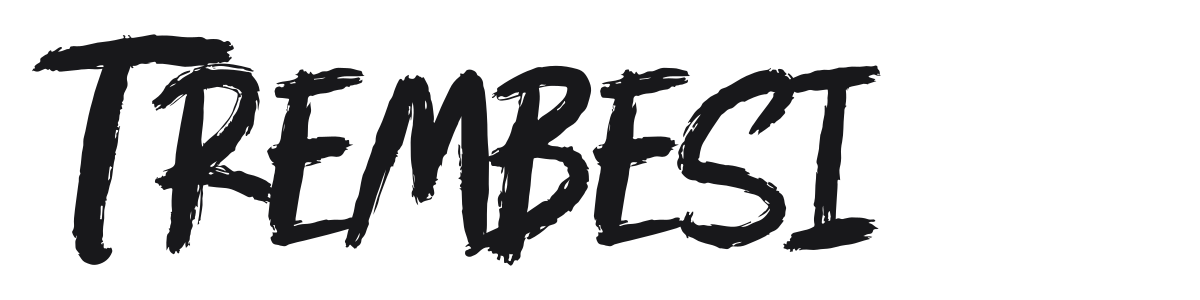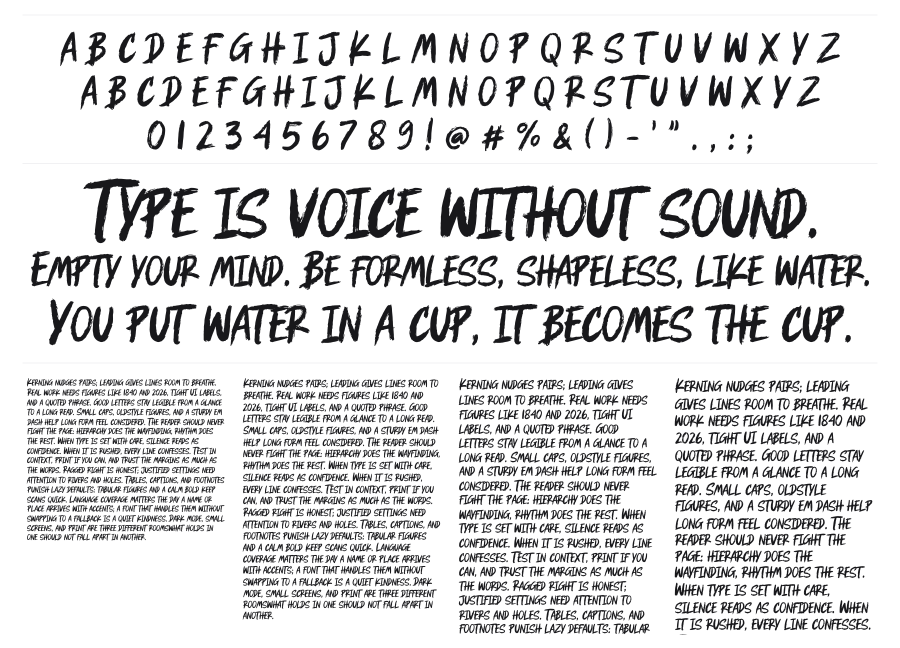
Trembesi
Trembesi is a bold, rough-textured brush script from Weape Studio with the raw energy of hand-painted signage. Thick strokes show visible bristle drag and ink variation, giving every word a sense of physical force and immediacy. It suits anything that needs to feel handmade, loud, and unapologetically human.